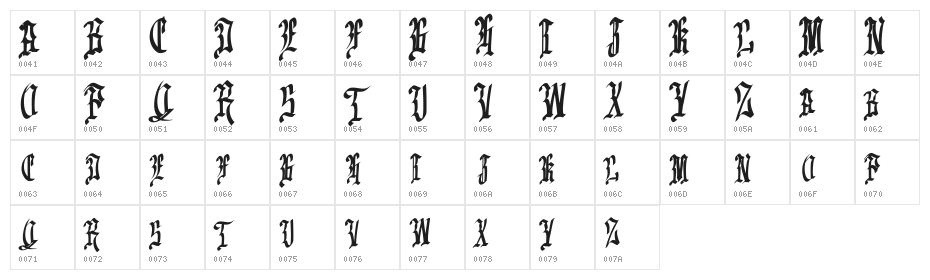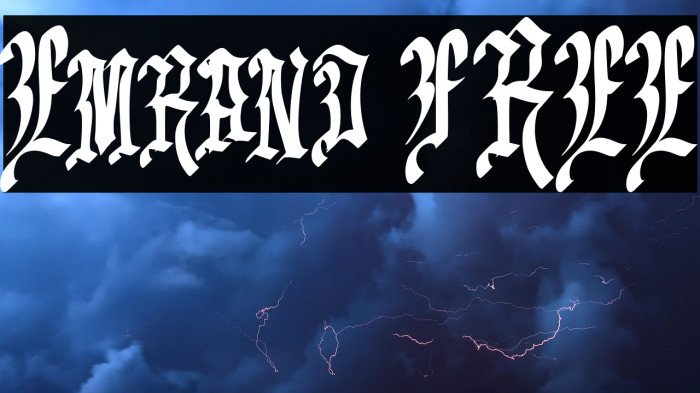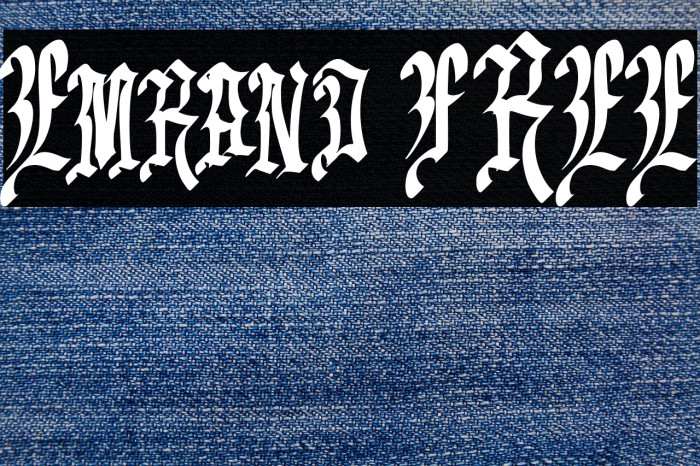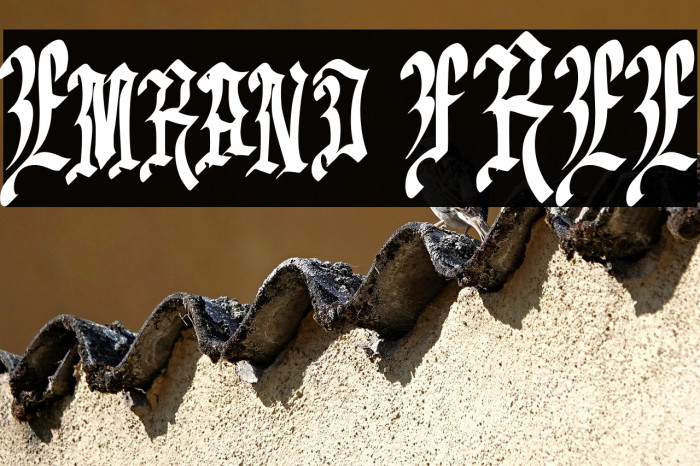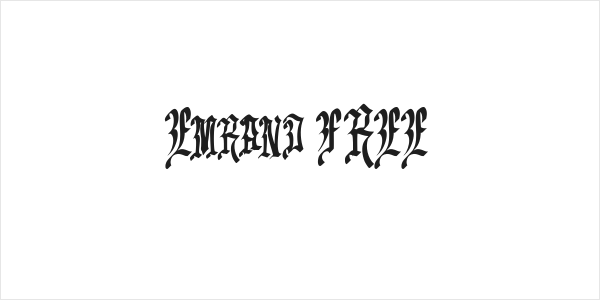
Emrand FREE Font
Emrand FREE Description
This font features a bold and intricate design reminiscent of traditional Gothic or Blackletter styles. The characters are highly decorative, with sharp angles and elaborate flourishes that give it a dramatic and historical appearance. The uppercase letters are particularly ornate, with each character displaying unique embellishments that enhance its visual impact. The lowercase letters maintain the same level of detail, ensuring consistency throughout the typeface. The numbers and special characters are equally stylized, making this font suitable for projects that require a strong, medieval aesthetic.
| Overall Style | Vintage |
| Use Case | Logos, Headlines, Decorative purposes |
| Proposed Projects | Ideal for use in tattoo designs, medieval-themed events, historical publications, or any project requiring a dramatic and traditional Gothic look. |